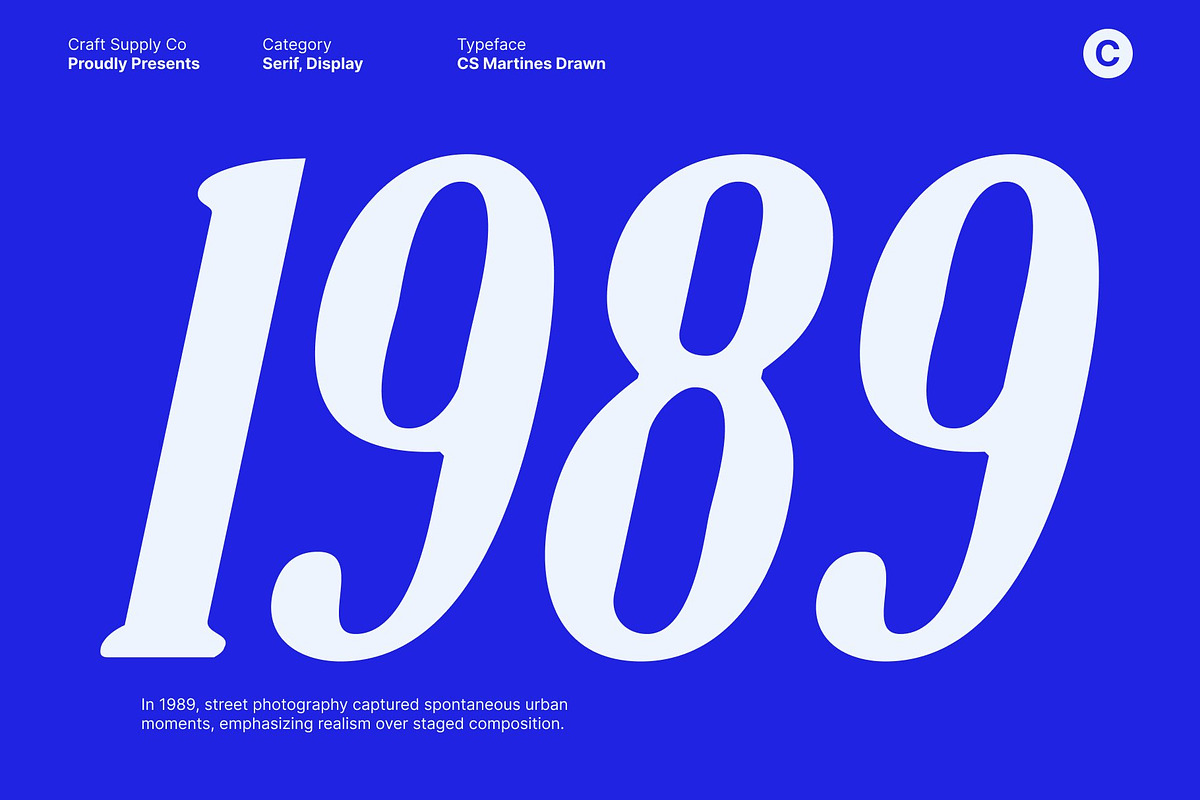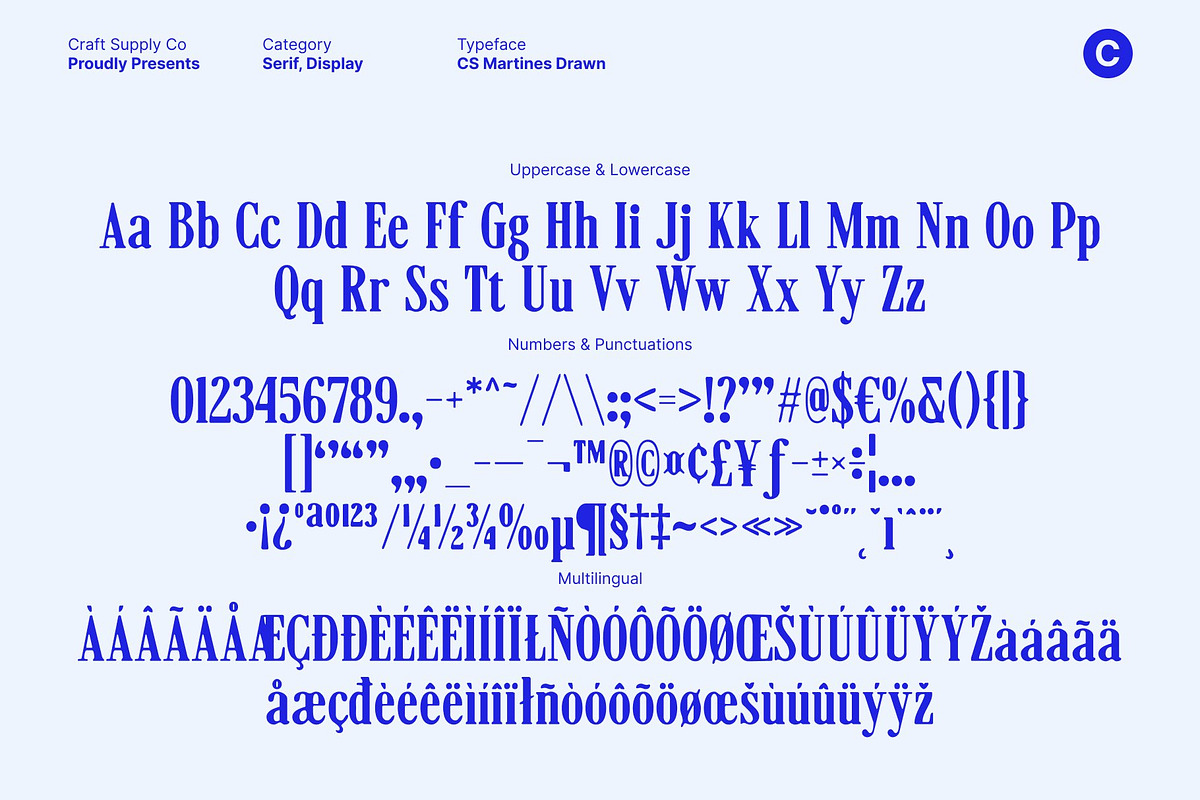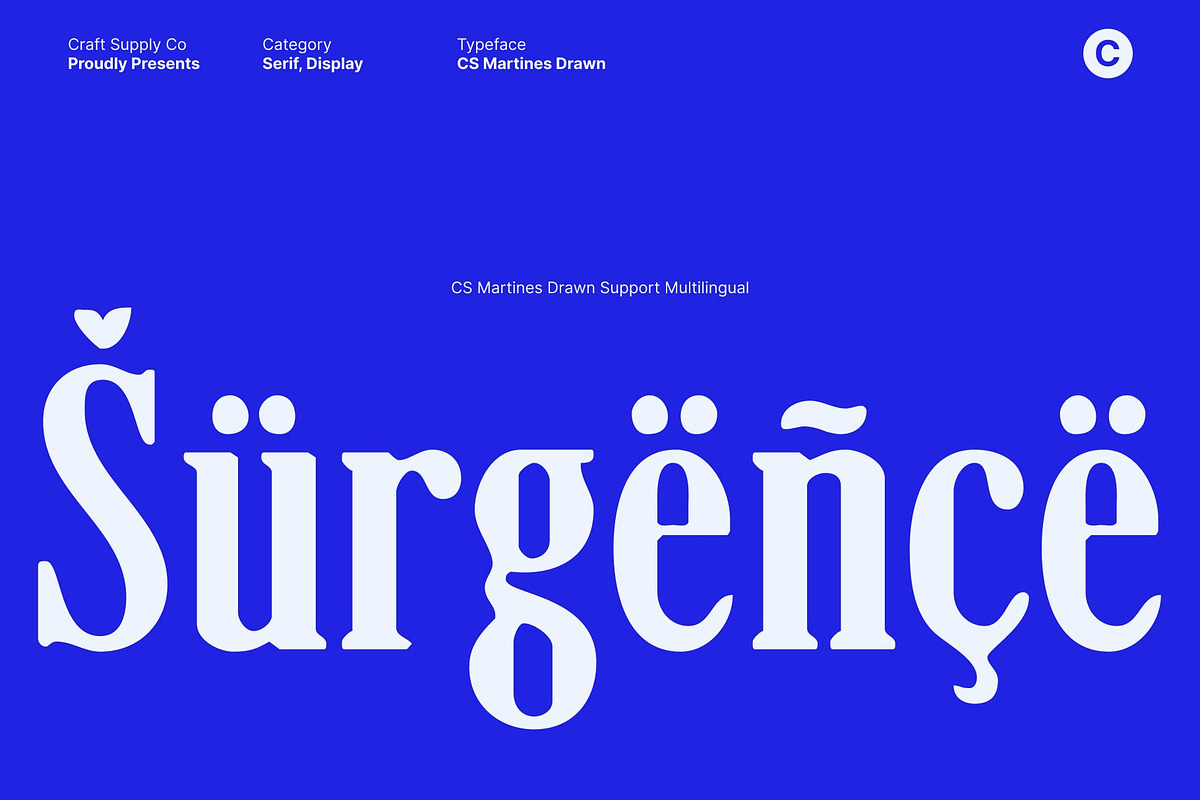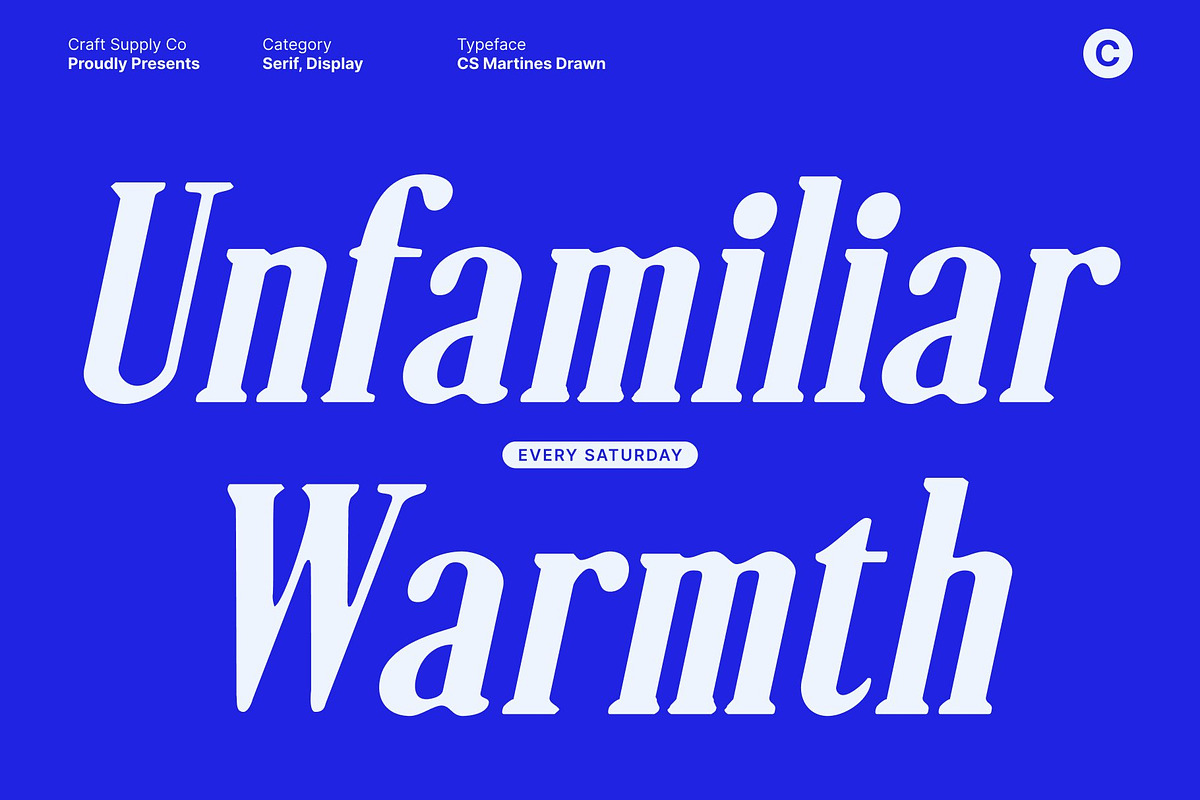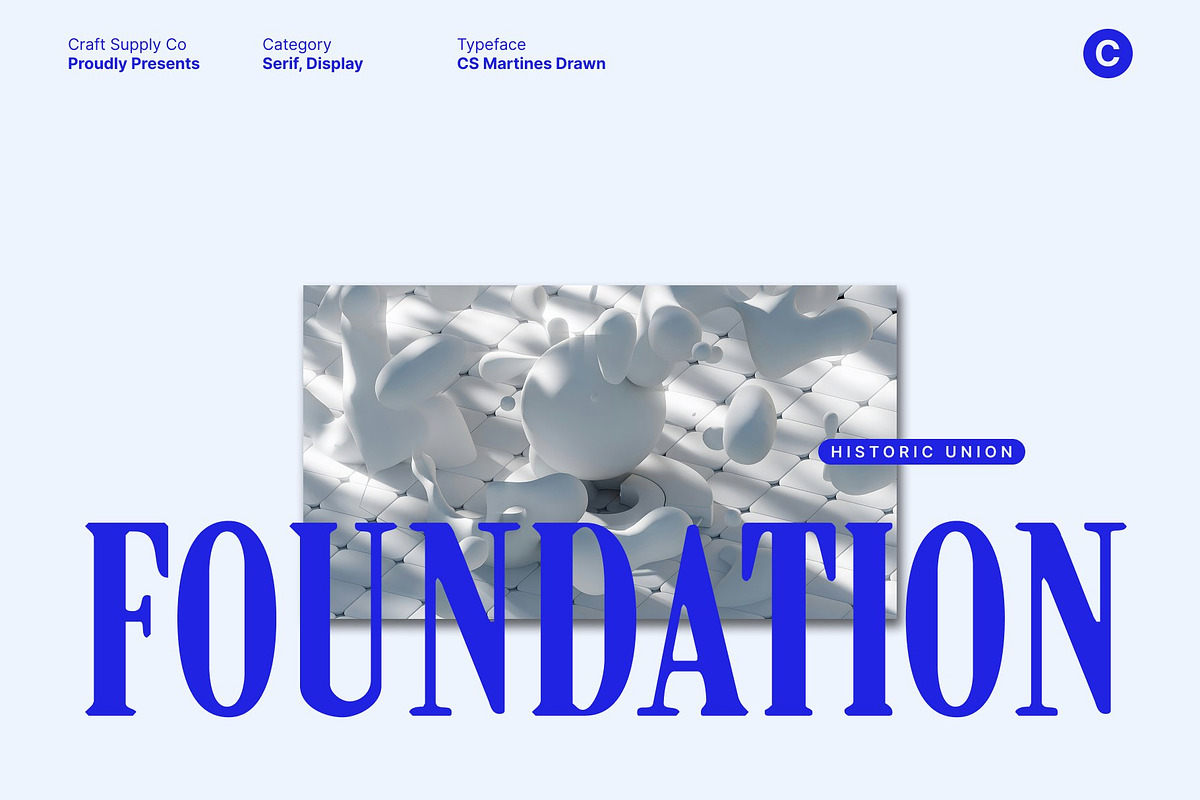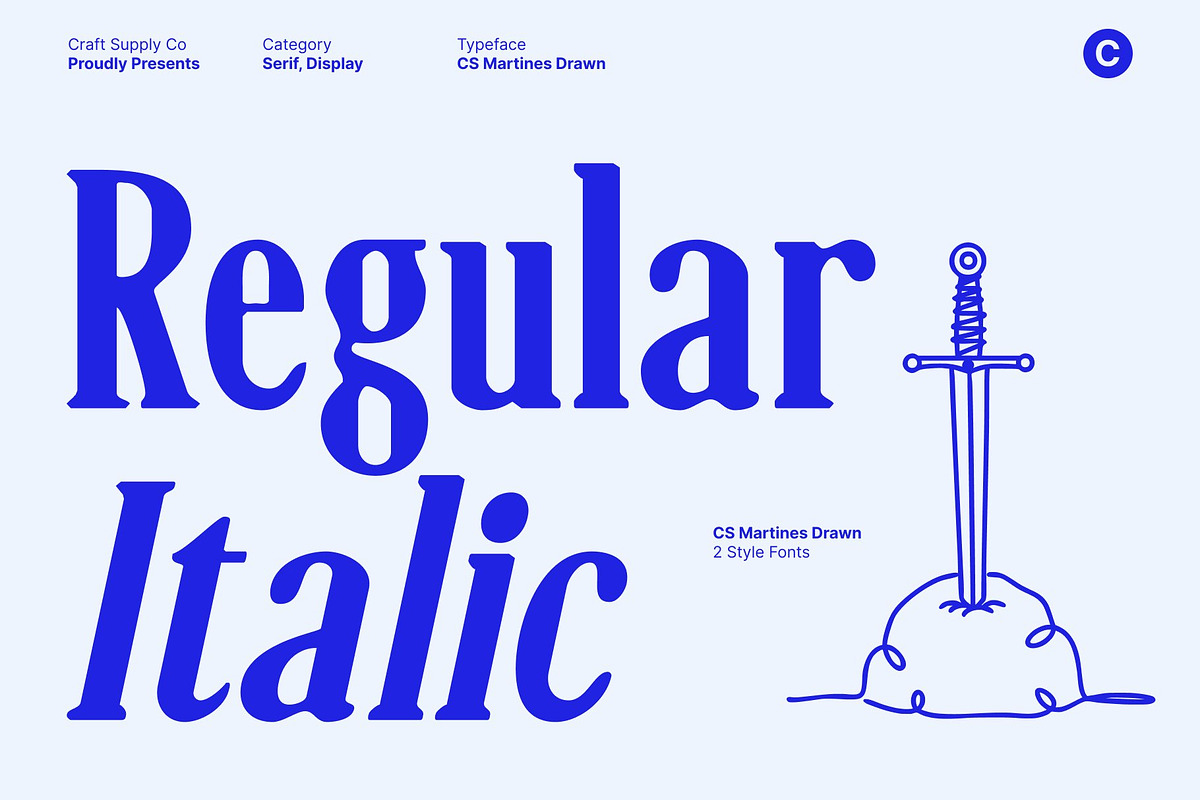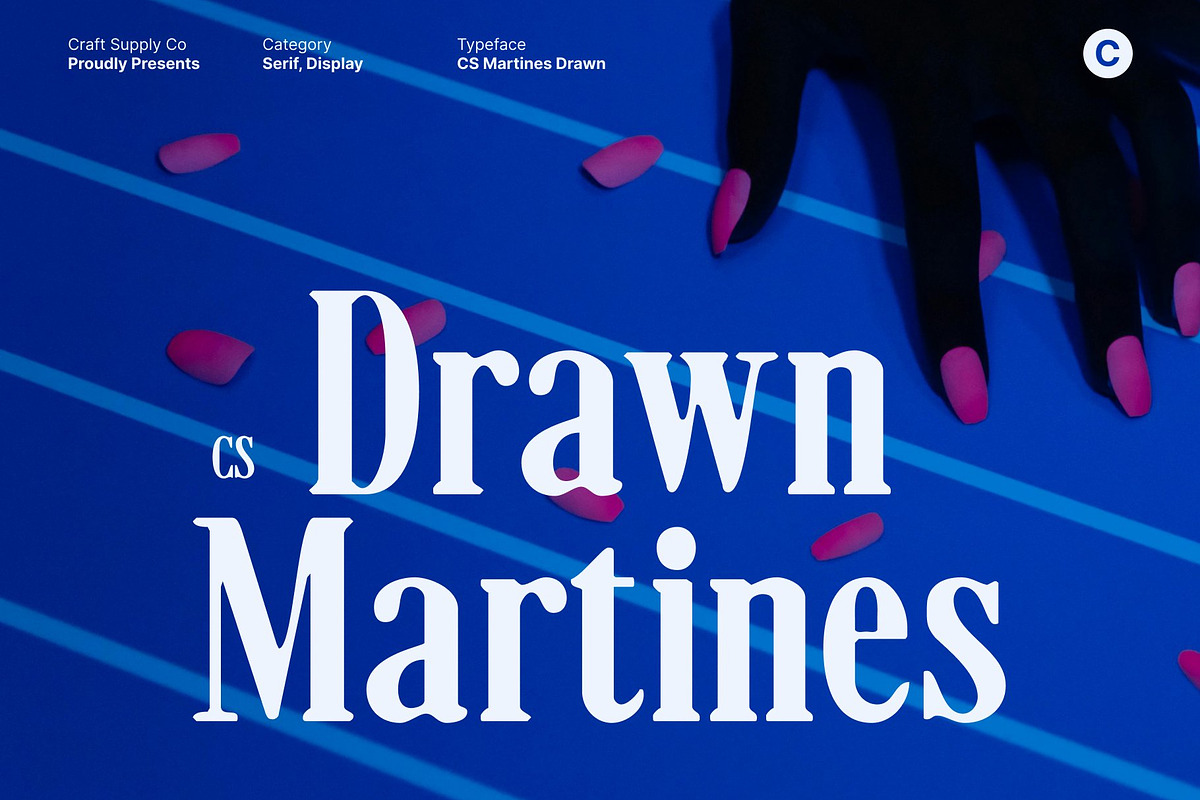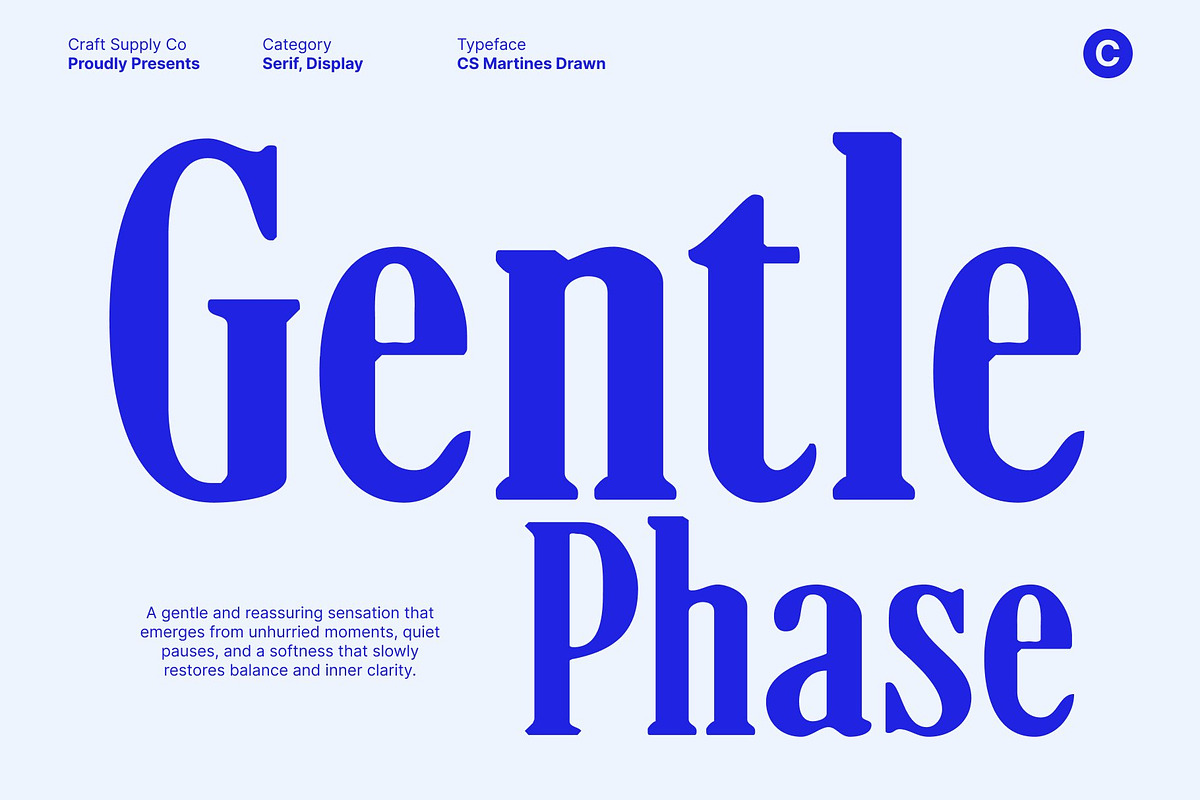
CS Martines Drawn
CS Martines Drawn – Condensed Serif Font with Classic Sophistication
Condensed Serif Font with Drawn Character This is a modern condensed serif font that combines elegant utility with subtle hand-drawn character. Designed with tall, slim proportions, this typeface delivers strong visual impact while remaining highly space-efficient. The drawn texture introduces gentle imperfections that add warmth and personality, transforming a refined serif structure into something expressive, human, and visually engaging.
Elegant Utility in a Space-Saving Form The condensed construction of makes it ideal for layouts where clarity and efficiency matter most. Its narrow letterforms allow designers to present information compactly without sacrificing readability. This makes the font especially effective for editorial layouts, book covers, headlines, and professional presentations that demand both elegance and spatial economy.
Classic Serif Details with a Contemporary Feel This font blends classic serif traditions with a modern sensibility. Delicate serifs, balanced proportions, and subtle contrast evoke timeless sophistication, while the drawn effect softens the overall appearance and keeps it feeling current. This combination creates a font that bridges heritage and modern design, suitable for high-end branding, publications, and corporate identities.
Refined Proportions for Versatile Creative Use Engineered for visual balance and consistency, maintains a smooth typographic rhythm even in dense compositions. Its clean structure and expressive texture make it adaptable across a wide range of applications, from editorial headlines and logos to refined branding systems.
- CS Martines Drawn Regular
- CS Martines Drawn Italic